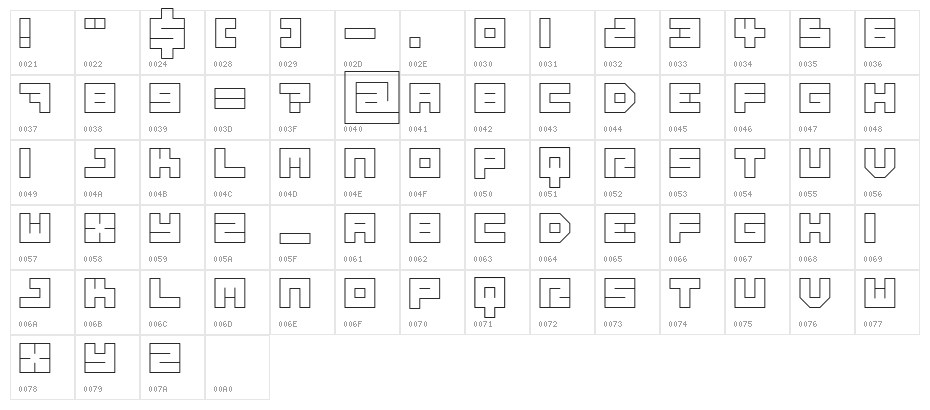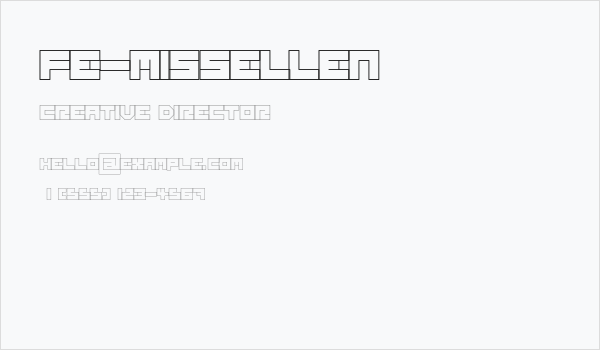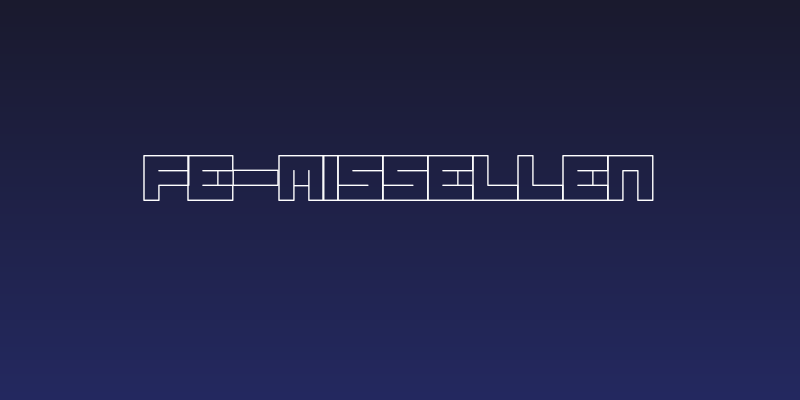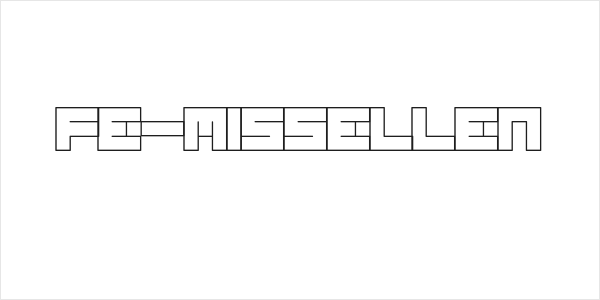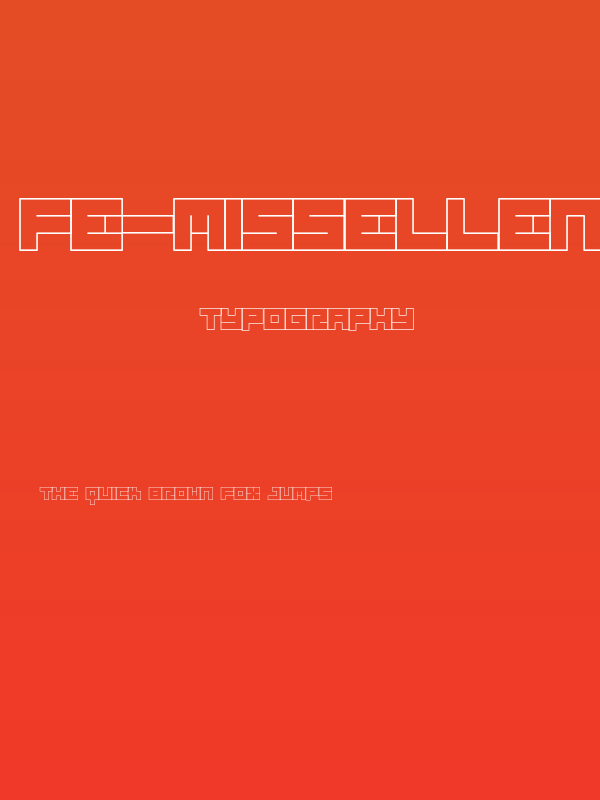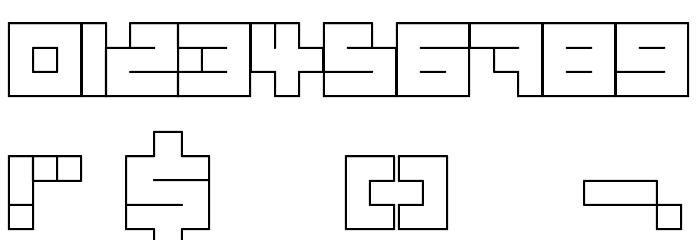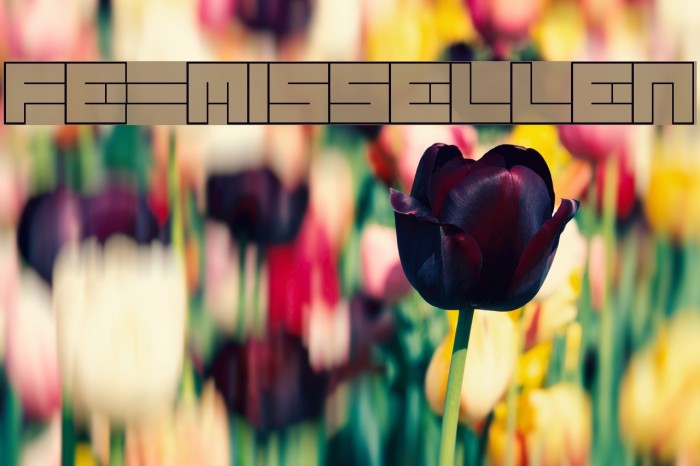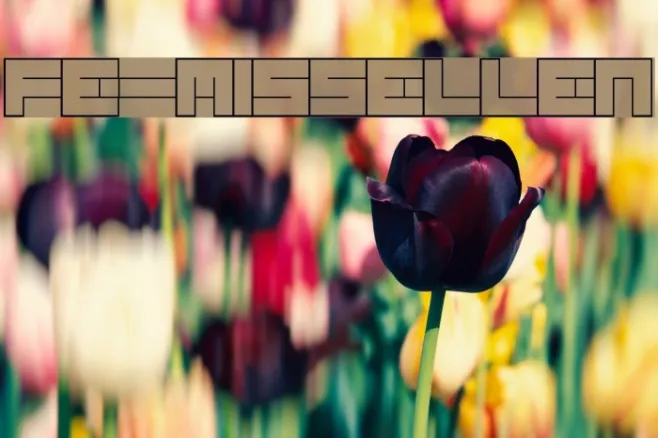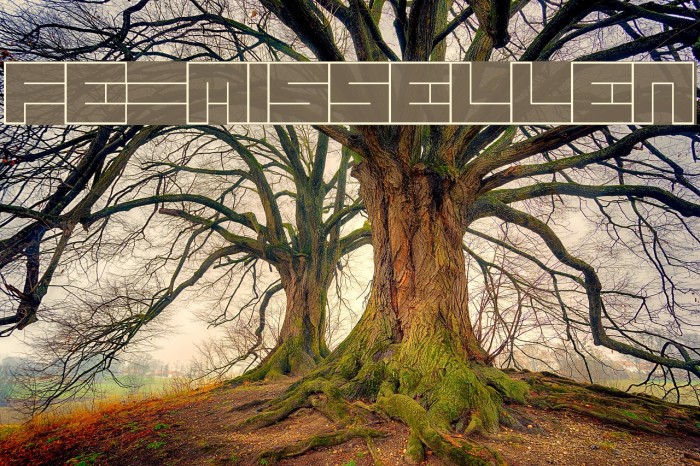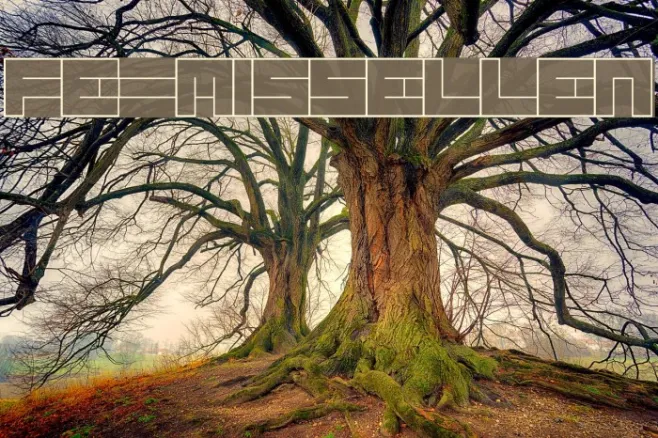
FE-MissEllen Font
FE-MissEllen Description
This font features a geometric, blocky design with a futuristic and digital aesthetic. Each character is constructed with straight lines and sharp angles, creating a uniform and structured appearance. The uppercase and lowercase letters are similar in style, maintaining the same angular and boxy form. The numerals and special characters follow the same design principles, ensuring consistency across the entire character set. The font's outline style adds a unique dimension, making it suitable for creative and modern projects.
| Proposed Projects | Ideal for digital art, tech-themed posters, video game graphics, and modern branding. |